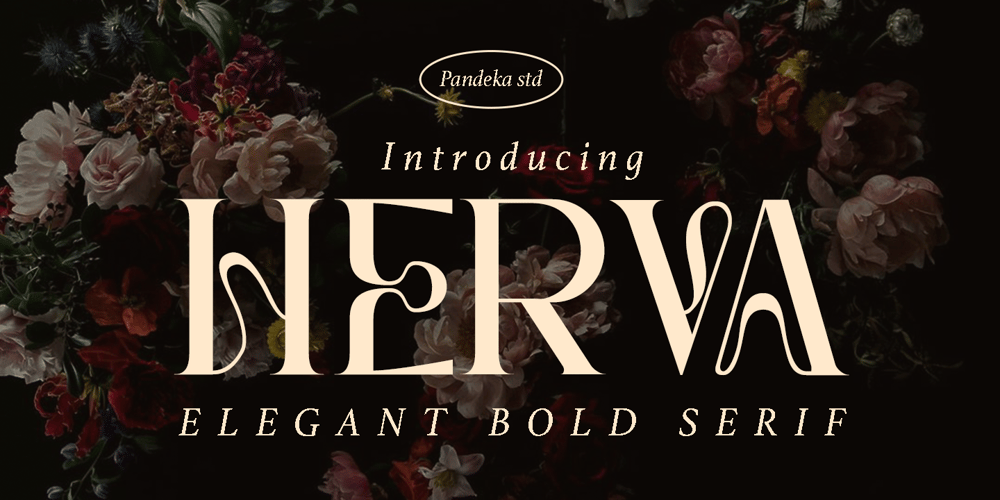
Herva Font Family was designed by Sagara Nararya and published by Pandeka Studio. Herva contains 1 styles and family package options. Introducing the new Herva Ligature Serif!Herva is a modern, elegant, and classy serif typeface, best used as a display for headings, logos, branding, magazines, product packaging, and invitations. Herva comes with clean lines and smooth curves that give any project an extra touch of class.Herva was built with OpenType features and includes ligatures, alternates, numbers, punctuation, and supports multiple languages.Features: Herva Main Files Unique Stylistic Alternates and Ligatures Instructions (Access special characters in all apps, even in Cricut Design) Accessible in Adobe Illustrator, Adobe Photoshop, Microsoft Word, and even Canva! PUA Encoded Characters: Fully accessible without additional design software Language Support: Danish, English, Estonian, Filipino, Finnish, French, Friulian, Galician, German, Gusii, Indonesian, Irish, Italian, Luxembourgish, Norwegian Bokmål, Norwegian Nynorsk, Nyankole, Oromo, Portuguese, Romansh, Rombo, Spanish, Swedish, Swiss-German, Uzbek (Latin) Feel free to follow, like, and share. Thanks so much for checking out my shop!Have a great day!Pandeka Studio